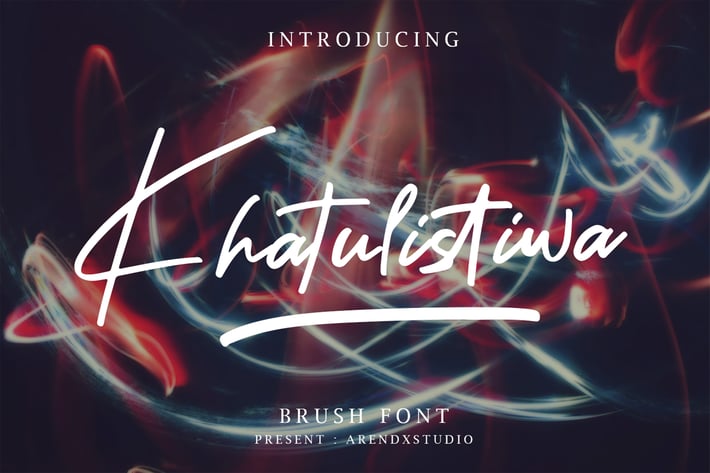
Khatulistiwa Brush Script Font
Introduce Khatulistiwa Font, handwritten fonts that are very charismatic and characterized by strong characteristics that will be very suitable for the various needs of your design projects, neatly designed I am sure you will get the font you desire .
Features : • Character Set A-Z • Numerals & Punctuations (OpenType Standard) • Accents (Multilingual characters) • Ligature • Swash